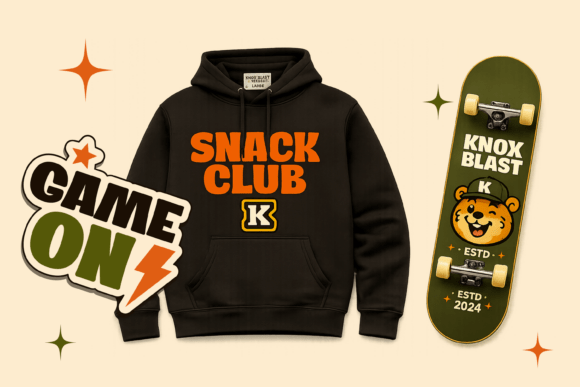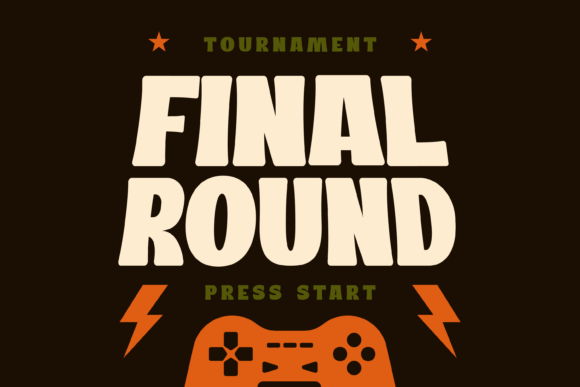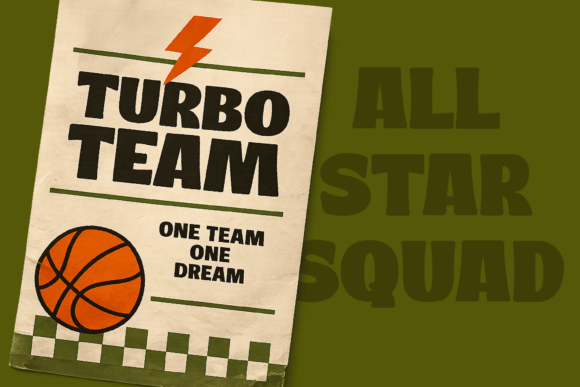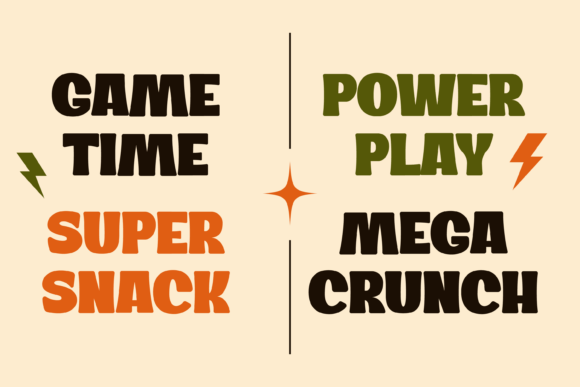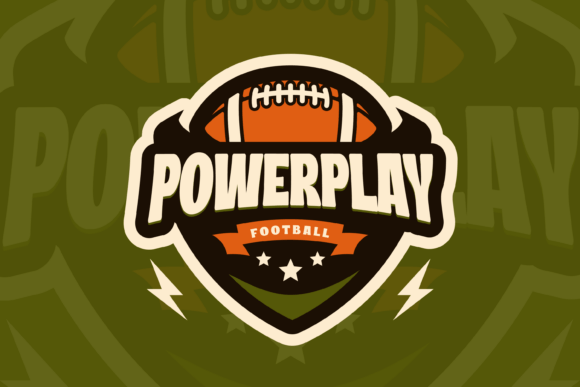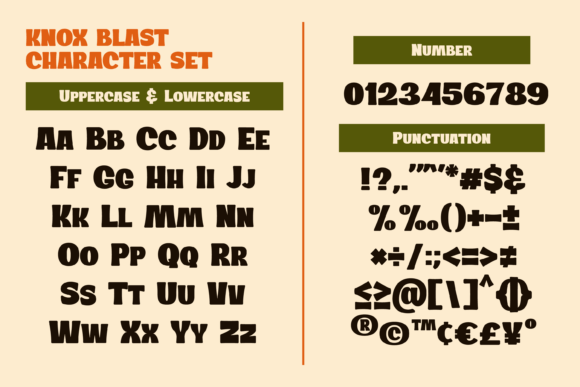
Introduction to Knox Blast Font
Knox Blast is a bold retro display font with a strong vintage personality and powerful chunky shapes.
Inspired by classic retro posters and groovy typography, this font delivers a fun, energetic, and eye-catching look that instantly stands out Its thick letterforms and playful curves make Knox Blast perfect for branding, posters, packaging, logos, merchandise, social media graphics, stickers, and creative headline designs that need a bold nostalgic vibe.
Key Features of Knox Blast Font